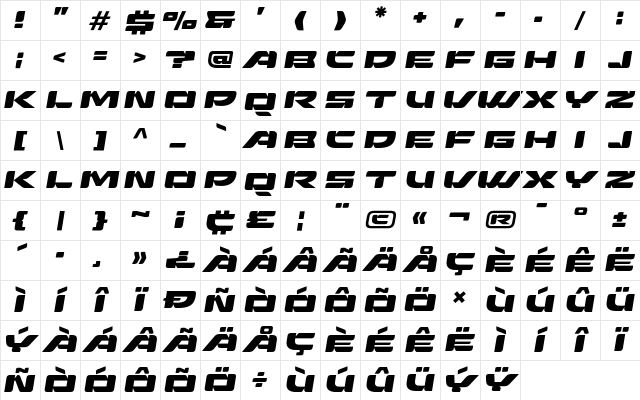
Complete Avianz Trial Regular glyph index. Displaying only characters natively supported by Avianz Trial Regular font.
Avianz Trial is a composed and adaptable typeface that performs quietly and consistently across a wide range of design contexts.